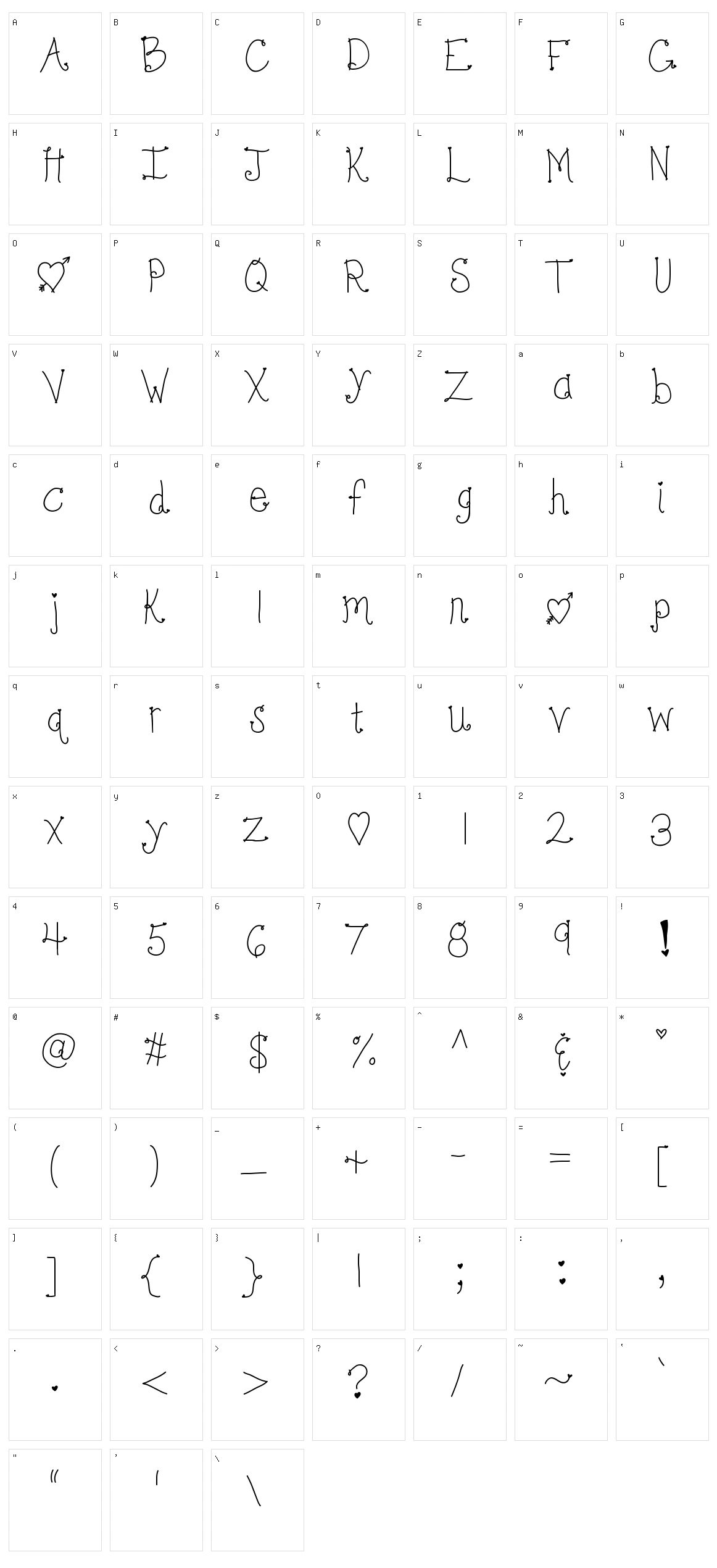
The free font KB Bonjour Sweetheart is carefully designed by Khrys Bosland, showcasing a thoughtful balance of creativity and usability and falls under the Valentine font style. When you download the ZIP file, it contains only 35.64 KB of font files, making it lightweight and quick to download. Please review the license details below to understand permitted usage and distribution rights. If license information is not available, we recommend using this font for personal projects only or contacting the author directly for commercial usage permissions.